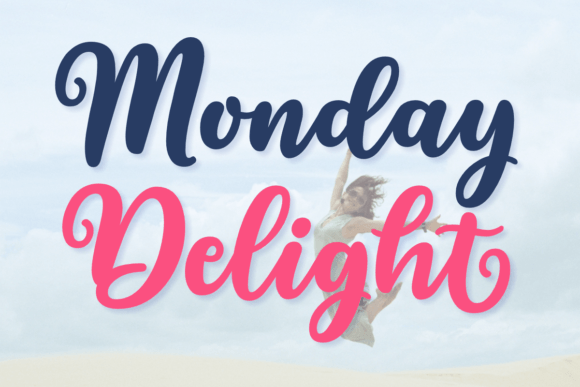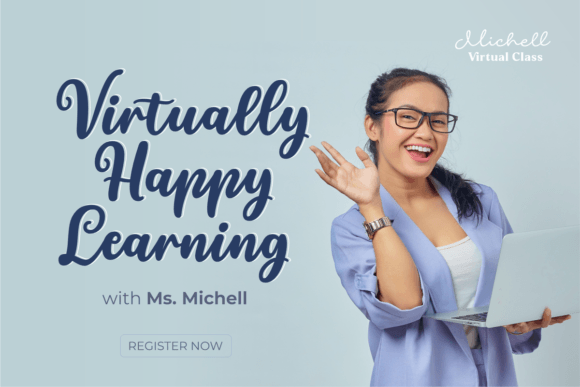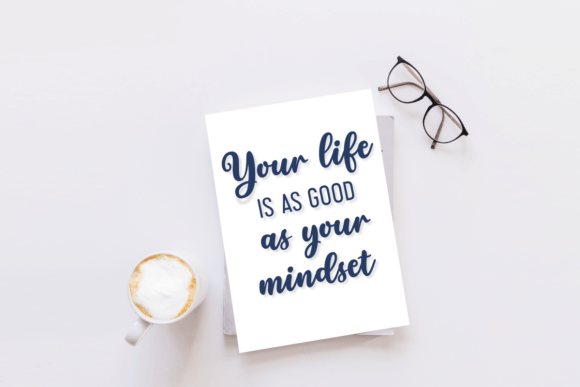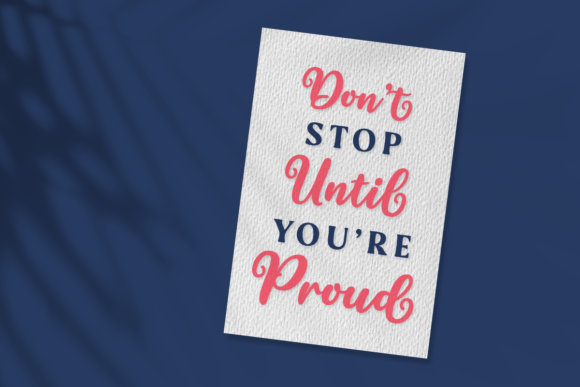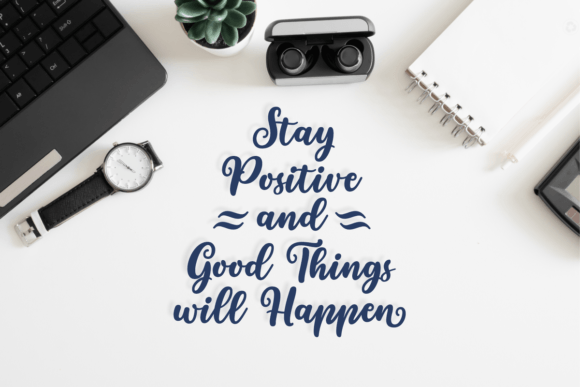
Monday Delight Font
About Monday Delight Font
Monday Delight stands out as a bold and beautiful script font, showcasing versatile and smoothly flowing characters that make it a perfect addition to your creative projects. Whether you’re working on branding, posters, invitations, or any design endeavor, these captivating characters are ready to bring your creative ideas to life. Explore the versatility and charm of Monday Delight and let it elevate the visual impact of your designs!
The boldness of Monday Delight’s characters makes a strong and stylish statement, adding a touch of confidence to your projects. Whether used in headlines or body text, this font exudes a sense of beauty and boldness that captures attention.
Imagine Monday Delight gracing a poster, where its bold and beautiful script creates a visually striking centerpiece. In branding, it becomes a signature element that communicates strength and elegance. For invitations, the nicely flowing characters add a touch of charm and personality to your event announcements.
The PUA encoding of Monday Delight opens up a world of possibilities, allowing easy access to all the glyphs and swashes. This feature empowers you to customize and personalize your designs, ensuring that each project reflects your unique style and creative vision.
In conclusion, Monday Delight is not just a font; it’s a design asset that brings boldness and beauty to your creative endeavors. Whether you’re working on a poster, branding materials, or other design compositions, let Monday Delight be the script font that transforms your ideas into visually stunning realities.